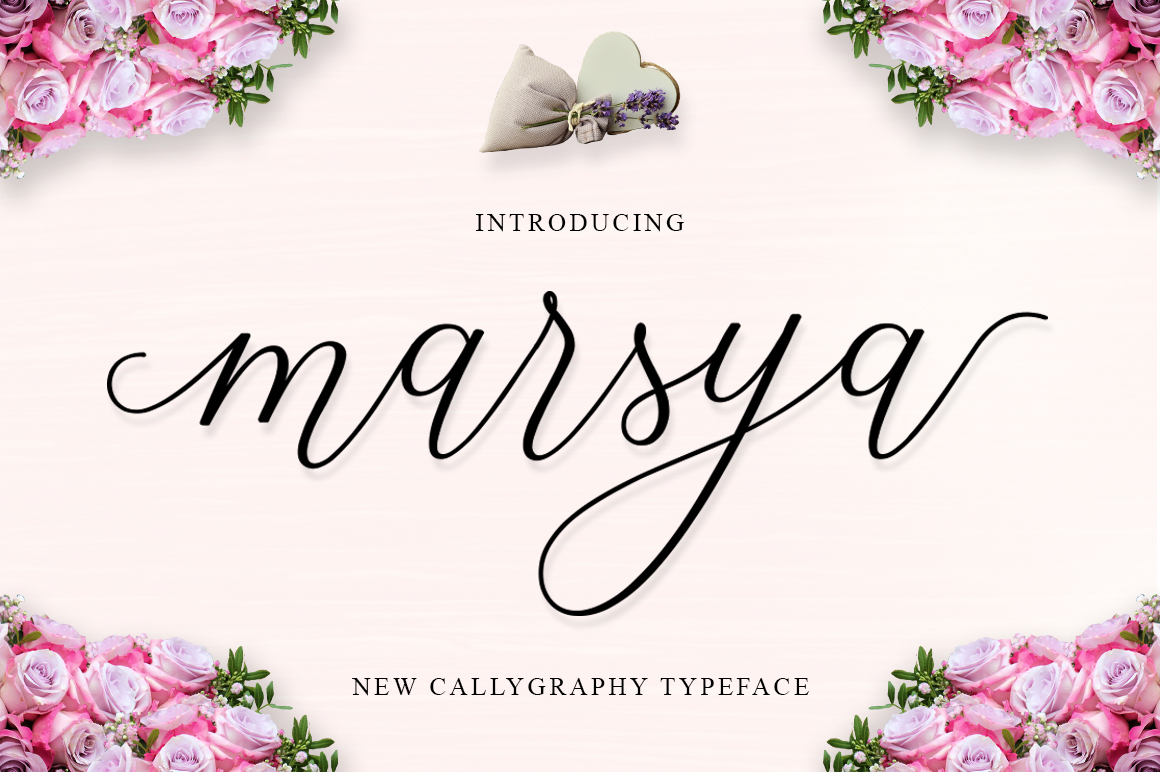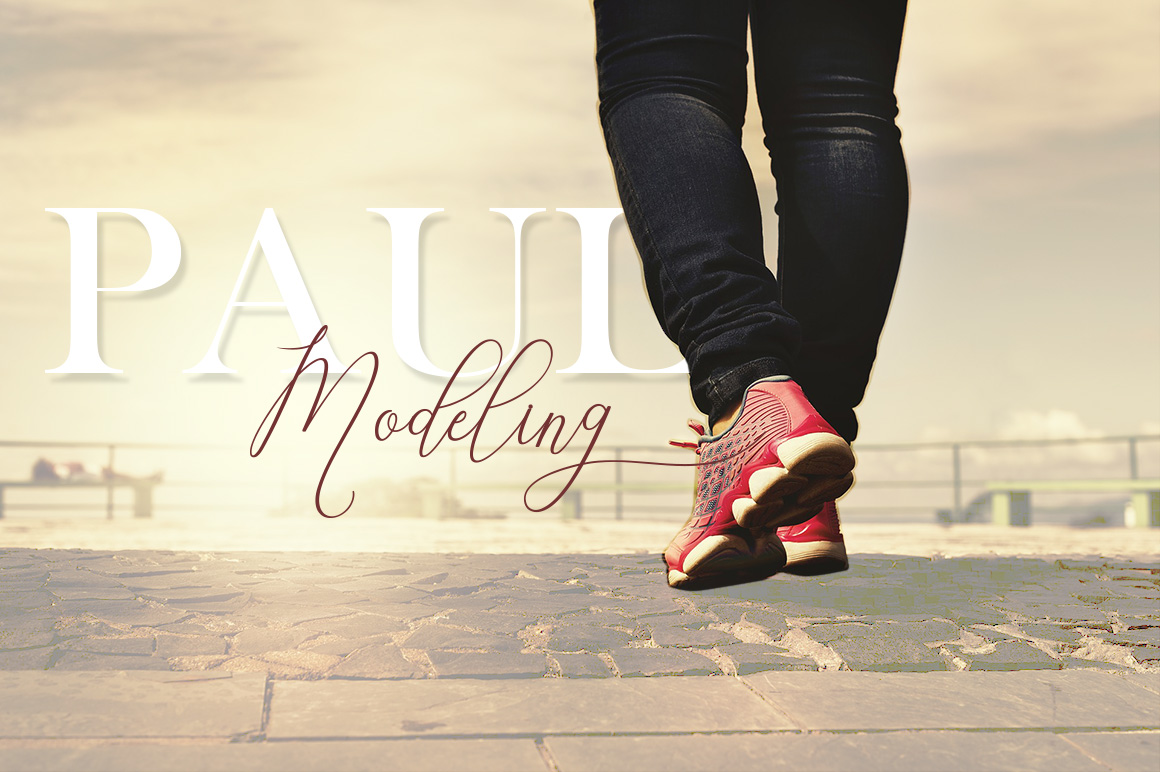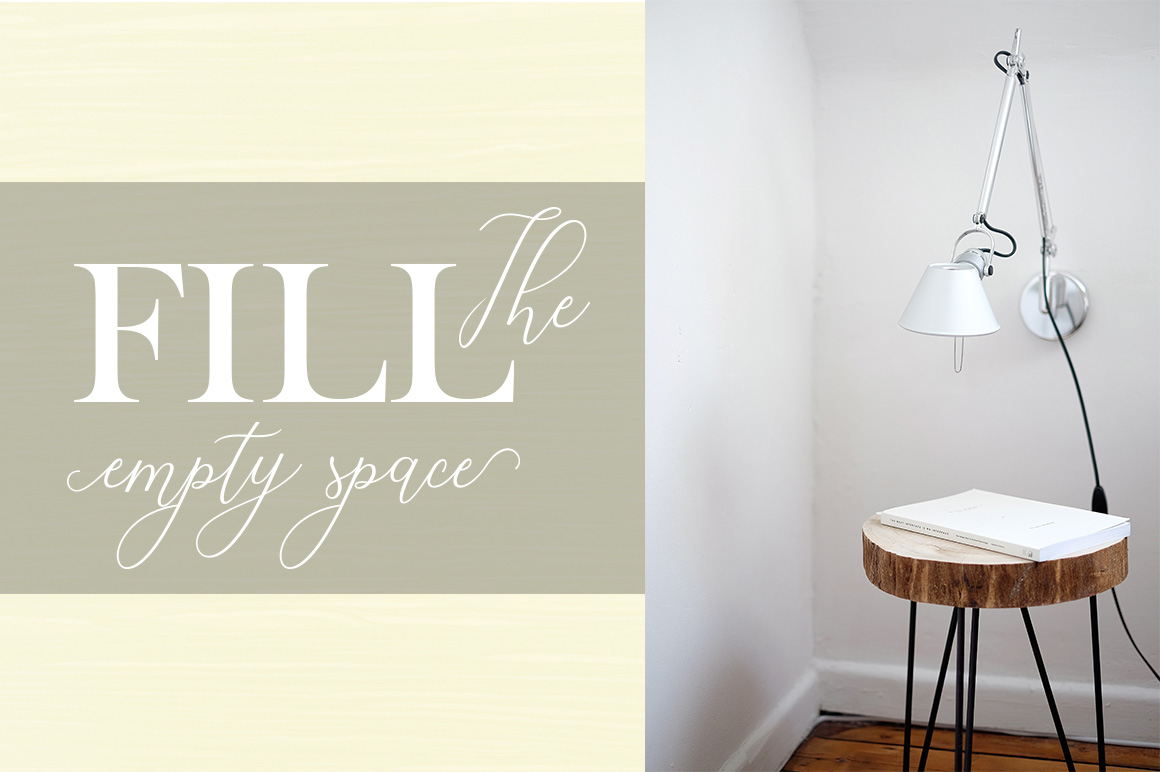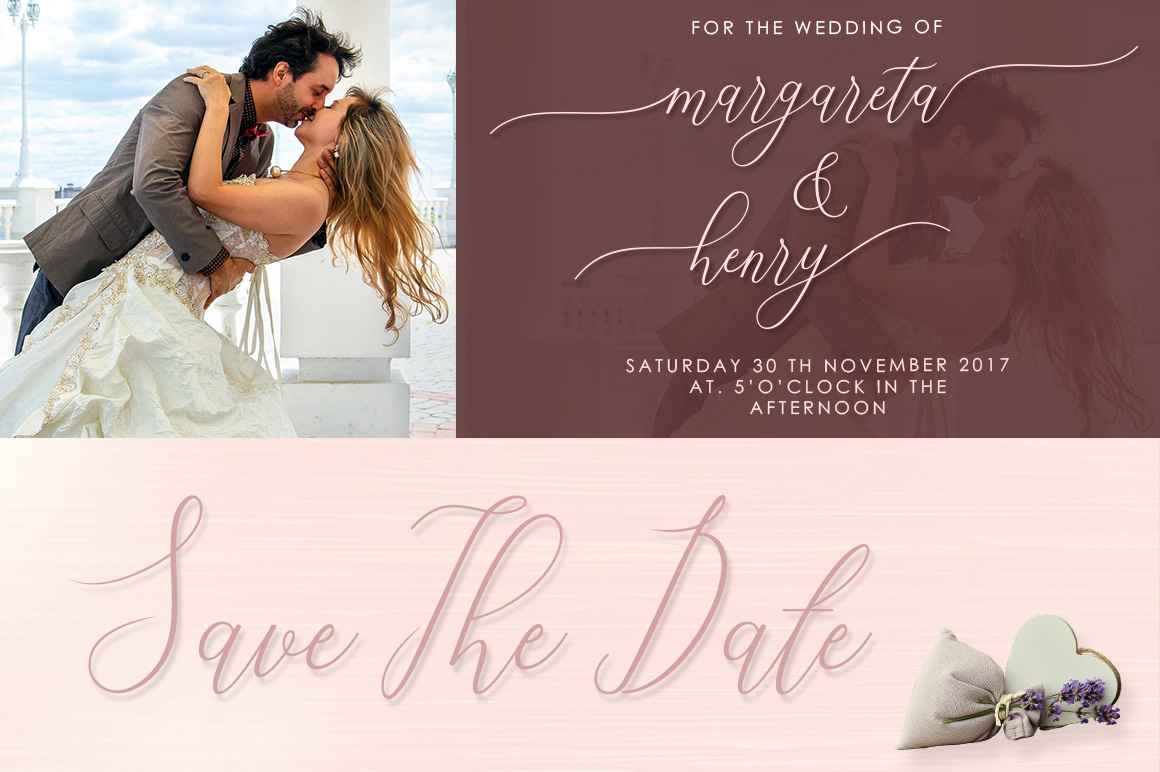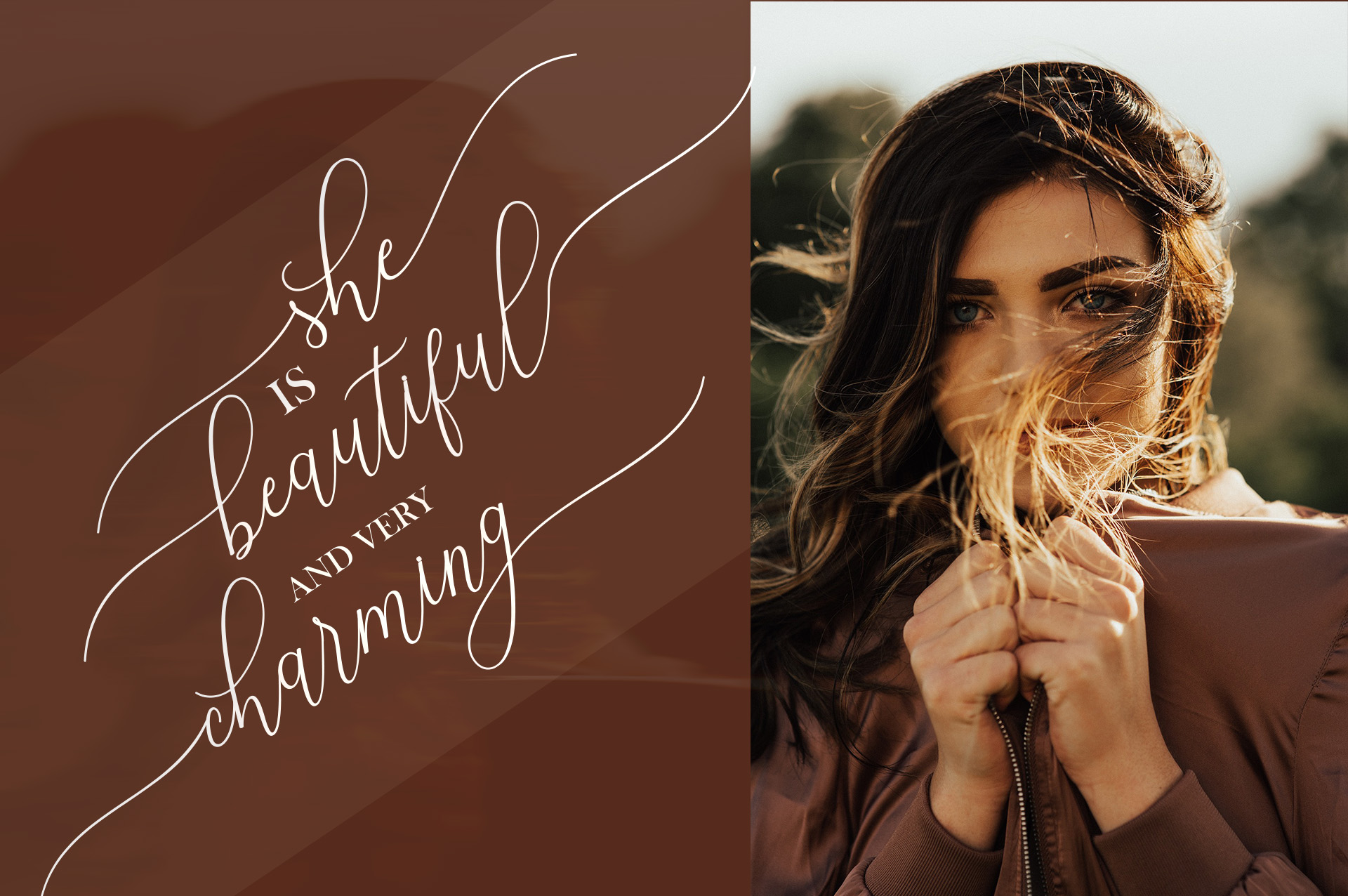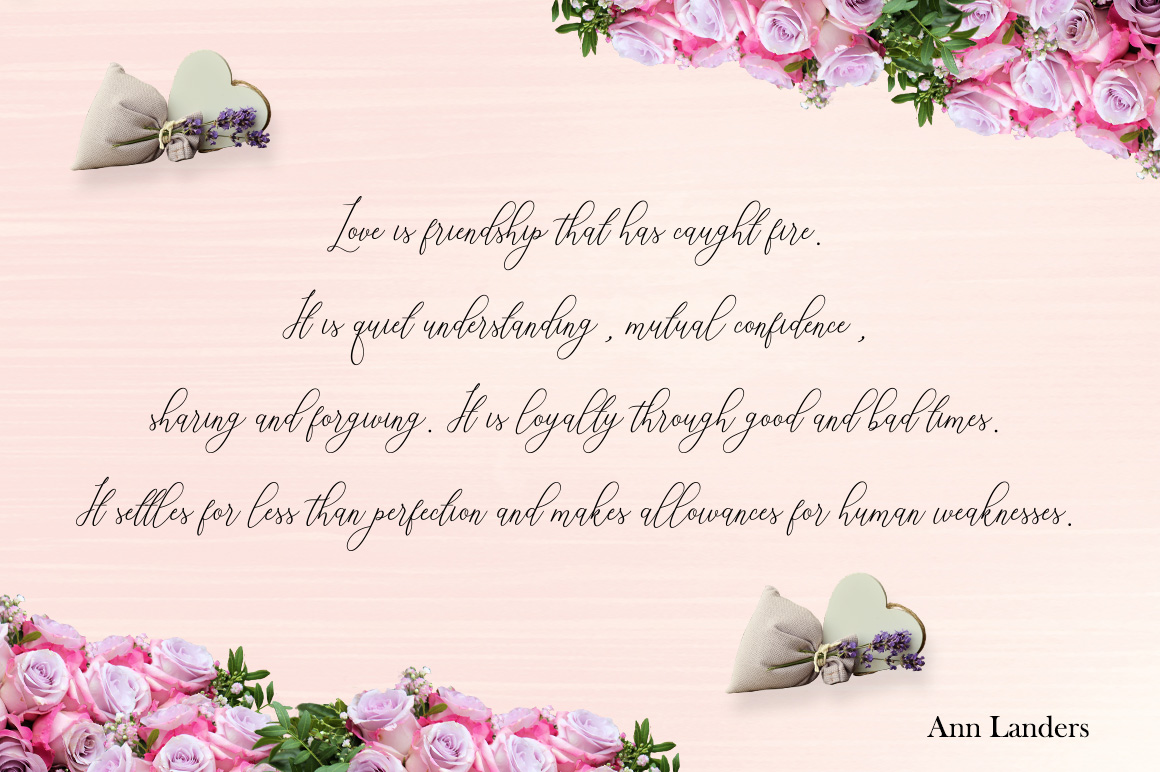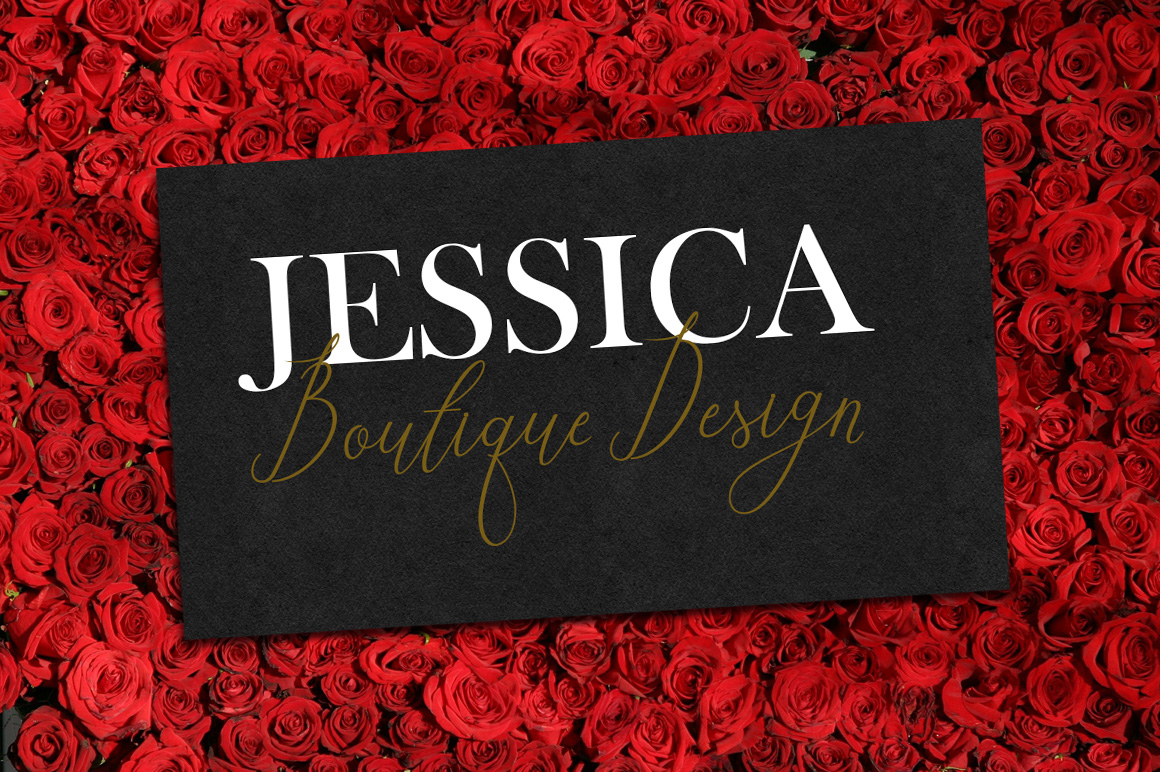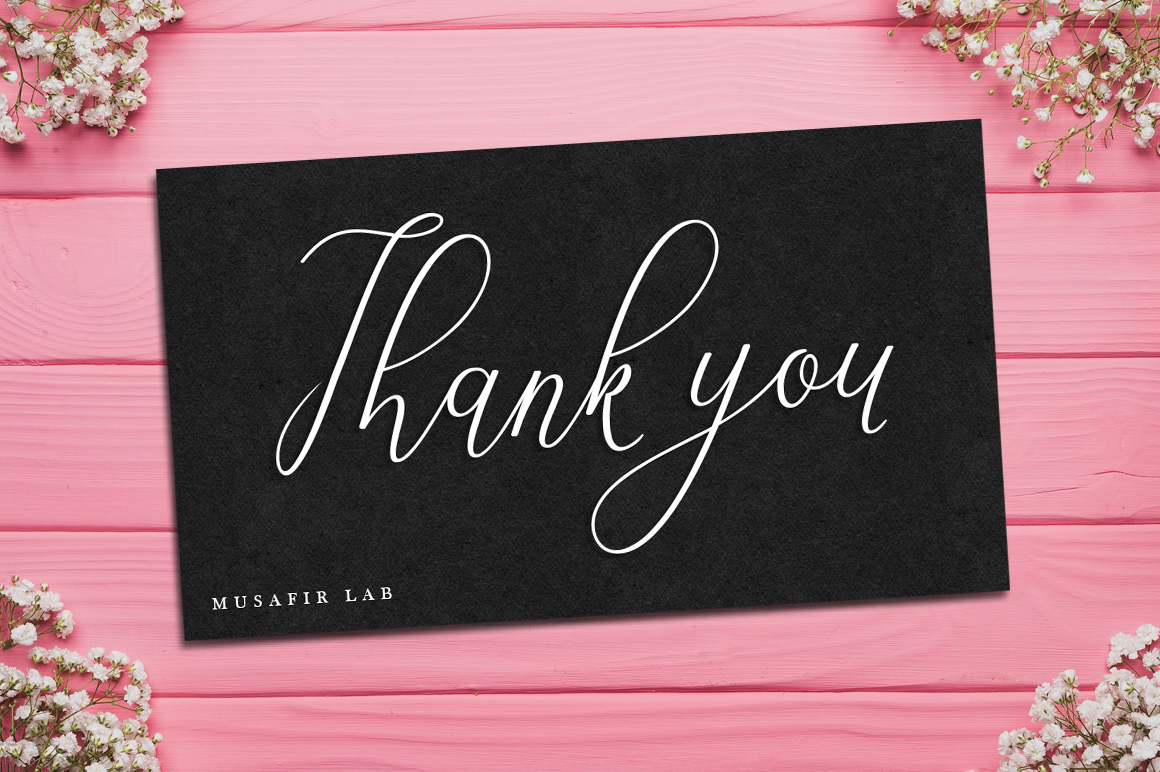
Marsya Font
About Marsya Font
Marsya is a elegant mix of classic beauty with a modern twist. It is the perfect style for elegant designs.
The Marsya font is packed with alternates and stunning swashes, allowing you to create many different variations. It features 550+ unique handmade glyphs.